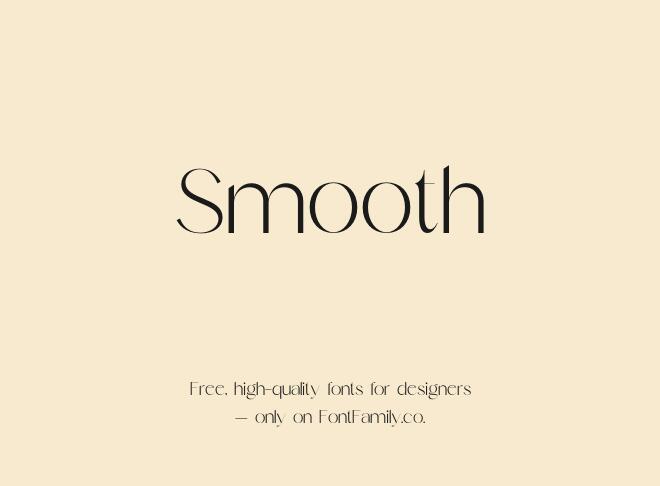
Smooth Font
Smooth Font, designed by Creative Type Foundry, is a modern, minimal, and versatile sans-serif typeface that exudes a sense of simplicity and sophistication. Its clean lines and balanced letterforms make it an ideal choice for a wide range of design projects, including branding, web design, print design, and more. Compared to other fonts, Smooth Font stands out for its ease of readability and adaptable character. It works perfectly in both large and small sizes, proving its versatility. Its modern design adds a contemporary edge to any project, while its minimalistic approach keeps the focus on your content. Choose Smooth Font to give your designs a sleek, professional, and polished look.